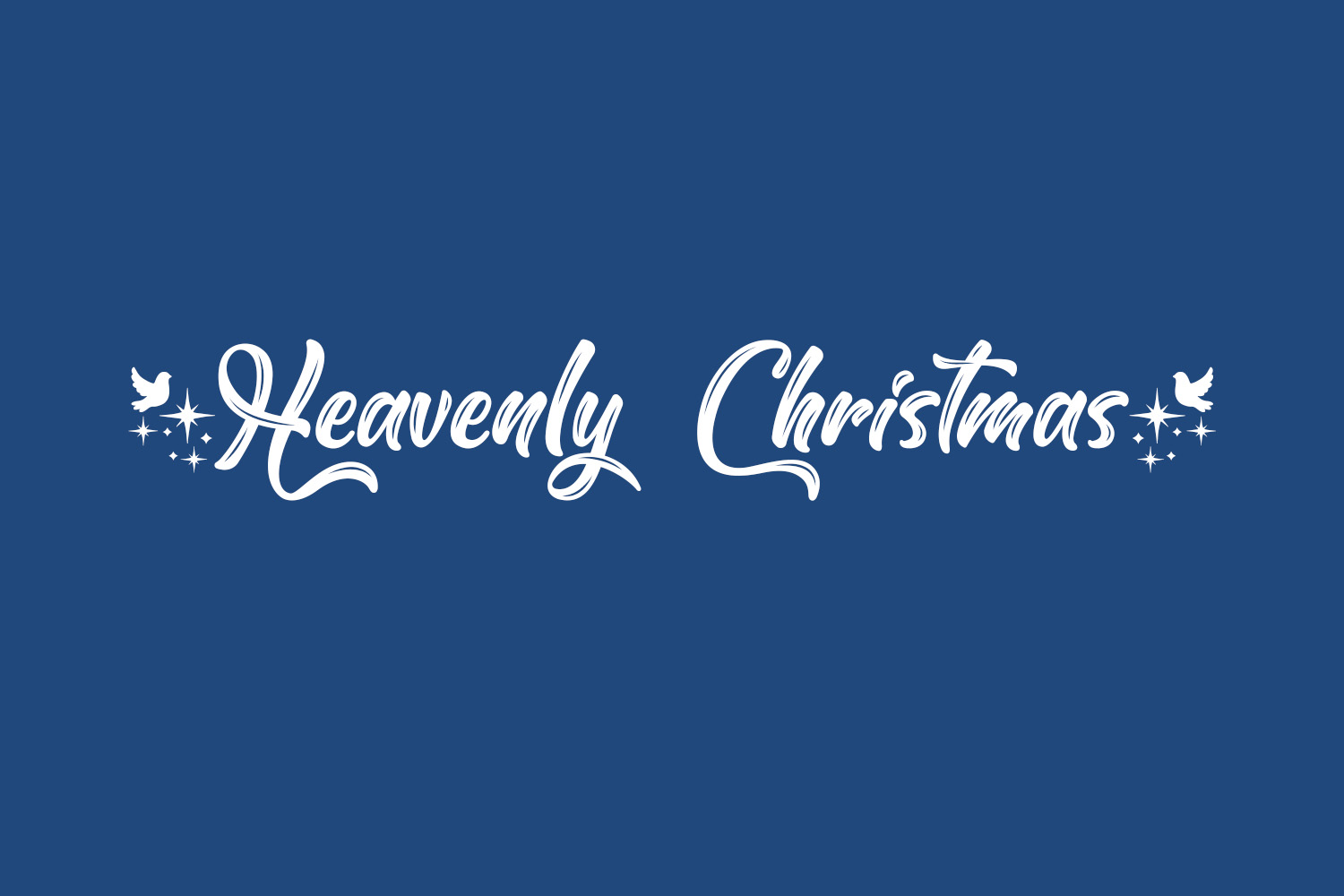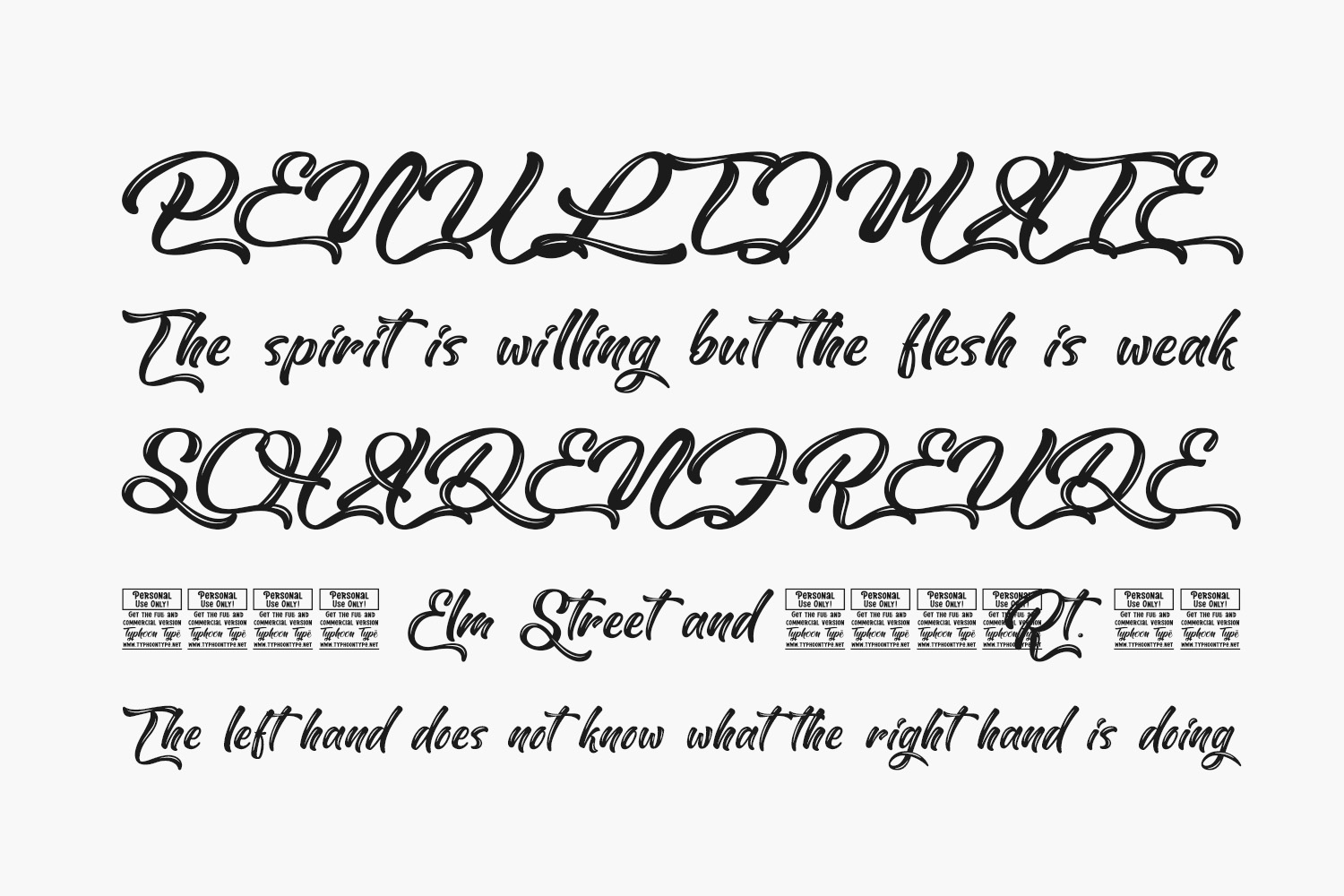
Presenting Heavenly Christmas Free Font – a captivating English font crafted to embrace the festive essence of Christmas. With its elegant script style, it captures the grace of hand-brushed strokes, delivering a charmingly flat yet expressive appearance. Meticulously designed, this font exudes joy and merriment, perfectly tailored for the holiday season.
Infused with a playful and modern touch, Heavenly Christmas proves to be an ideal companion for diverse advertising endeavors. Whether for greeting cards, banners, or digital campaigns, this font effortlessly infuses a dose of Christmas magic into your designs, making them both enchanting and timeless. Illuminate your projects with the festive allure of Heavenly Christmas. Heavenly Christmas Free Font is a demo and free for personal use only. Please purchase the full version for commercial use.